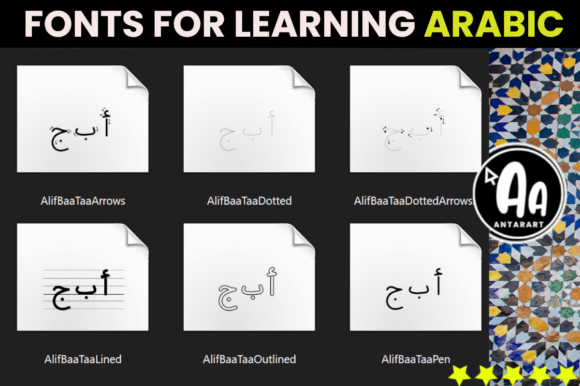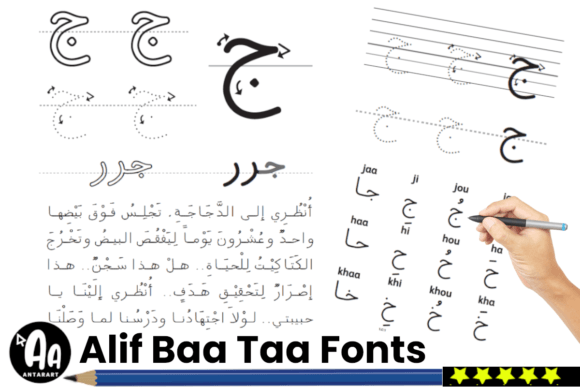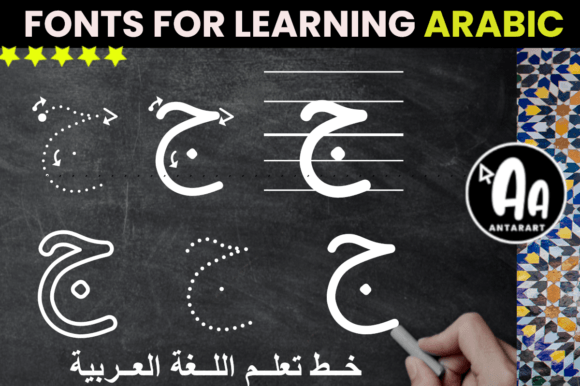
Alif Baa Taa Arabic Alphabet Letters Font
About the Alif Baa Taa Arabic Alphabet Letters Font
Get ready to be inspired by Alif Baa Taa Arabic Alphabet Letters Font, a fresh and dynamic typeface for modern creators. These handwritten Arabic fonts help you to teach and learn Arabic or create thousands of Arabic worksheets using any software. It is a great learning resource for those who are interested in the Arabic language.